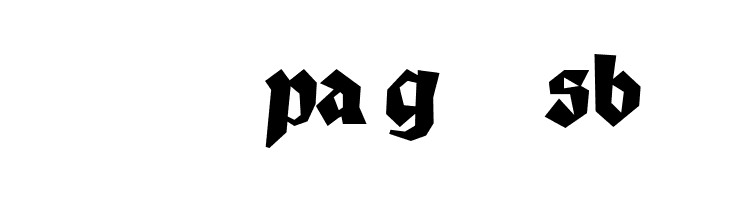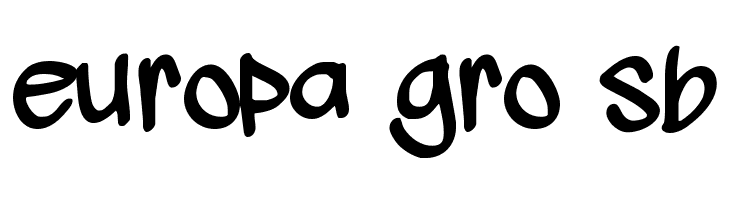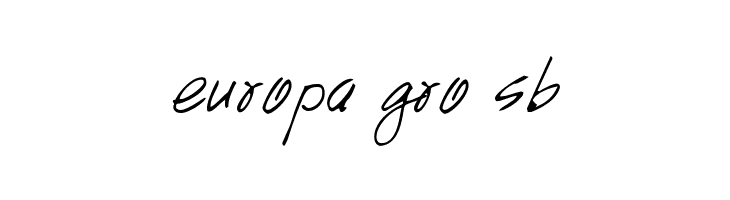
A bold, distressed font with a corroded, textured appearance.
A bold, distressed font with a rugged, vintage look.
A decorative, runic-inspired font with a bold, distressed texture.
A vintage cursive font with elegant, flowing strokes and a hand-drawn feel.
A bold, blackletter font with sharp, angular forms and high contrast strokes.
A classic Blackletter font with ornate, angular letterforms and a medieval aesthetic.
A bold, distressed font with a vintage, grunge style.
A handcrafted, artistic font with uneven strokes and a playful style.
A casual, handwritten font with dynamic, fluid strokes.